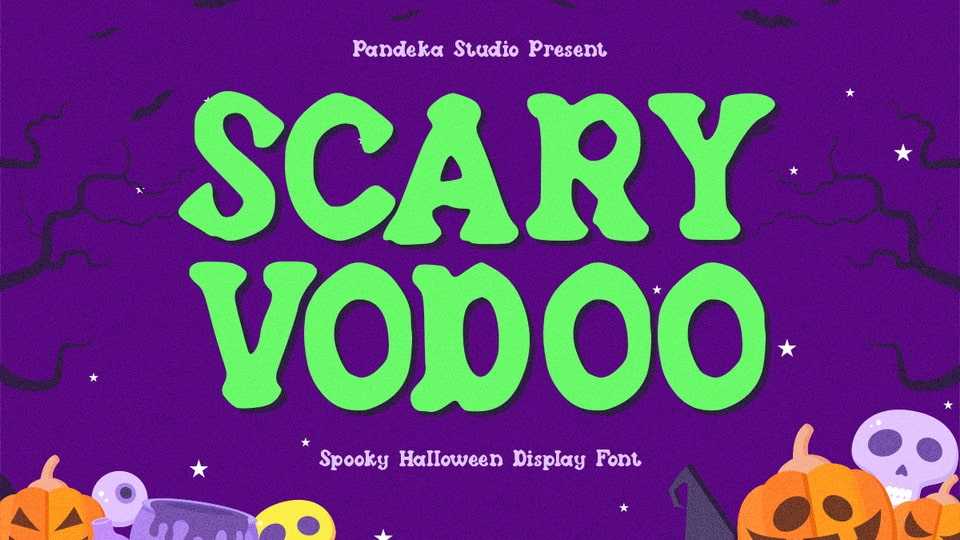
Scary Vodoo Font › Fontesk – Download Grátis
Download Scary Vodoo font, a spooky display typeface with eerie, dripping details, perfect for horror posters, Halloween invitations, haunted house flyers, creepy branding.